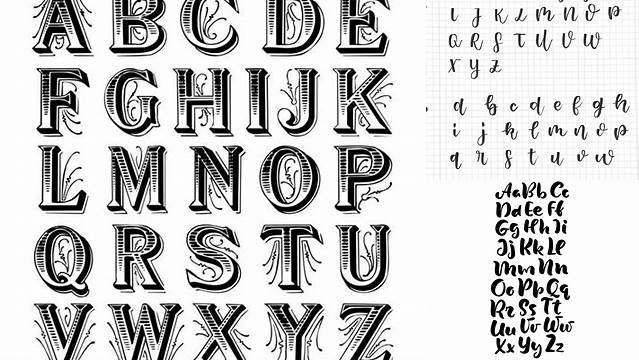
Lettering Fonts: Design Alphabets & Creative Typography
Hey guys! Ever wondered how to make your text pop with stunning lettering? Or maybe you're just curious about the art of lettering fonts design? Well, you've come to the right place! This comprehensive guide dives deep into the world of lettering, exploring various fonts, design techniques, and alphabets that will take your creations to the next level. Whether you're a seasoned designer or just starting out, there's something here for everyone. So, let's get started and unleash your inner lettering artist!
Lettering Fonts: The Foundation of Design
Lettering fonts are the backbone of any great design that involves text. Understanding lettering fonts is crucial because they set the tone, style, and overall aesthetic of your project. Think of it this way: a playful, bubbly font would be perfect for a children's book, but it might look completely out of place on a professional business card. The world of lettering fonts is vast and varied, with each style carrying its own unique personality and purpose. From elegant serifs that exude sophistication to modern sans-serifs that scream minimalism, the options are endless. Exploring the history and evolution of different lettering fonts can also provide valuable insights into their appropriate use. For example, knowing that calligraphy-inspired scripts originated from handwritten traditions can help you appreciate their formal and graceful qualities. Furthermore, the technical aspects of lettering fonts, such as kerning (the spacing between individual letters) and leading (the spacing between lines of text), play a significant role in readability and visual appeal. Mastering these elements will allow you to create designs that not only look beautiful but are also easy to read. Remember, choosing the right lettering font is like selecting the perfect outfit for an occasion β it should fit the context and enhance the overall message.
Exploring Different Styles of Lettering Fonts
When we talk about lettering fonts, it's like stepping into a candy store β there are so many delicious options to choose from! Each style of lettering font carries its own unique flavor and personality, making it crucial to understand the nuances before picking one for your project. Serif fonts, with their little βfeetβ or strokes at the ends of letters, often convey a sense of tradition, elegance, and formality. Think of classic book covers or prestigious logos β you'll often find serif fonts in play. On the other hand, sans-serif fonts, which lack these serifs, tend to feel more modern, clean, and minimalist. They're a popular choice for websites and digital interfaces where readability on screens is key. Script fonts, inspired by handwriting, add a touch of personality and flair. They can range from formal calligraphy to playful brush lettering, making them versatile for invitations, branding, and artistic projects. Display fonts are the wildcards of the font world β they're designed to grab attention and often feature unique, stylized letterforms. These fonts are perfect for headlines, posters, and anything that needs a bold statement. Understanding these different styles and their characteristics is like having the right tools in your toolbox β you'll be able to choose the perfect lettering font for any project.
The Importance of Readability in Lettering Fonts
While lettering fonts are all about aesthetics, let's not forget a crucial element: readability! After all, what's the point of a beautiful design if no one can read it? Readability is the ease with which the viewer can understand the written text. It's affected by various factors, including the font's letterforms, spacing, size, and contrast with the background. Imagine a script font with overly ornate swirls and loops β it might look stunning at first glance, but if the letters are difficult to distinguish, it won't be very effective for conveying your message. Similarly, a font that's too small or has insufficient contrast with the background can strain the eyes and make reading a chore. When selecting lettering fonts, consider the context in which they'll be used. For body text in a book or on a website, prioritize clarity and legibility. Sans-serif fonts are often preferred for digital screens due to their clean lines and good readability at smaller sizes. For headlines or display text, you have more leeway to experiment with decorative fonts, but always ensure that the core message remains clear. Remember, a well-chosen lettering font is one that not only looks good but also allows your audience to effortlessly connect with your content. So, let's make readability a priority in our designs!
Lettering Design: Techniques and Principles
Lettering design is more than just picking a pretty font; it's an art form that combines creativity, technical skill, and a deep understanding of visual communication. Mastering lettering design involves learning various techniques and principles that help you create impactful and visually appealing compositions. One fundamental aspect is understanding typography β the art of arranging type to make written language legible, readable, and appealing. This includes considerations like font pairing, kerning, leading, and hierarchy. Font pairing involves selecting two or more fonts that complement each other and create visual harmony. Kerning, as we discussed earlier, is the adjustment of spacing between individual letters to achieve a balanced and consistent appearance. Leading refers to the vertical space between lines of text, which affects readability and overall layout. Hierarchy is the visual arrangement of text to guide the reader's eye and emphasize important information. Beyond typography, lettering design also encompasses hand-lettering, which is the art of drawing letters by hand. This allows for a more organic and personalized touch. Whether you're working digitally or with traditional tools, mastering lettering design principles will enable you to create text that not only looks beautiful but also effectively communicates your message. So, let's dive into the techniques and principles that make lettering design a powerful tool for visual expression!
The Role of Composition in Lettering Design
Composition is the silent architect of lettering design, the invisible framework that holds your visual message together. It's how you arrange the elements of your design β the letters, words, and any accompanying graphics β to create a harmonious and impactful whole. A well-composed lettering piece guides the viewer's eye, establishes visual hierarchy, and communicates the message effectively. Think of it like staging a play β you wouldn't just throw the actors on stage and expect them to tell a compelling story; you'd carefully consider their positions, movements, and interactions. Similarly, in lettering design, you need to think about the placement of each letter and word, the overall balance of the composition, and the way the different elements relate to each other. One key principle of composition is the use of negative space, also known as whitespace. This is the empty space around and between your lettering elements, and it's crucial for preventing visual clutter and improving readability. A generous amount of negative space can make your lettering feel more open and inviting, while too little can make it feel cramped and overwhelming. Other compositional elements to consider include alignment, balance (symmetrical or asymmetrical), and the use of focal points to draw the viewer's attention to key areas. Mastering composition is like learning the language of visual storytelling β it allows you to craft lettering designs that not only look beautiful but also resonate with your audience on a deeper level.
Hand Lettering Techniques for Unique Designs
Hand lettering is where the magic happens! It's the art of drawing letters, not just typing them, and it allows for a level of personalization and uniqueness that's hard to achieve with standard lettering design. Hand lettering opens the door to endless creative possibilities, from elegant calligraphy to whimsical brush lettering. So, how do you get started? Well, the first step is to understand the basic strokes that form the foundation of letterforms. Whether you're using a pen, brush, or digital stylus, practice creating consistent lines, curves, and angles. Experiment with different tools and techniques to find your own style. Brush lettering, for example, involves varying the pressure on your brush to create thick and thin strokes, adding a dynamic and flowing quality to your lettering. Calligraphy, on the other hand, often involves more structured letterforms and a focus on precision and consistency. Don't be afraid to explore different styles and find what resonates with you. Beyond the technical aspects, hand lettering is also about expressing your personality and creativity. Let your imagination run wild and experiment with different letterforms, flourishes, and embellishments. Remember, practice makes perfect, so dedicate time to honing your skills and developing your unique hand lettering style. With a little patience and passion, you'll be creating stunning hand-lettered designs in no time!
Digital Lettering Design: Tools and Software
In today's digital age, lettering design has evolved beyond traditional pen and paper, opening up a whole new world of possibilities. Digital lettering design allows you to create stunning letterforms with the flexibility and precision of software and digital tools. So, what are some of the essential tools and software for digital lettering? Well, first off, you'll need a graphics tablet and stylus. These allow you to draw directly on your computer screen, mimicking the feel of traditional hand lettering. Wacom is a popular brand, but there are many other options available to suit different budgets and needs. Next, you'll need to choose your software. Adobe Illustrator is an industry-standard vector graphics editor that's widely used for lettering design. It offers a wide range of tools for creating and manipulating letterforms, including the Pen tool, which allows you to draw precise curves and lines. Adobe Photoshop is another popular choice, especially for raster-based lettering and adding textures and effects. Procreate, an iPad app, has also gained popularity among lettering artists for its intuitive interface and powerful features. When it comes to digital lettering techniques, there are a few key things to keep in mind. Working with vector graphics allows you to scale your lettering without losing quality, making it ideal for logos and designs that need to be used at different sizes. You can also easily experiment with different colors, gradients, and effects to add visual interest to your lettering. Remember, digital lettering is a powerful tool, but it's still important to have a strong foundation in lettering principles. Understanding letterforms, composition, and typography is crucial for creating effective and visually appealing digital lettering designs. So, embrace the digital realm and let your creativity flow!
Lettering Alphabet: A Deep Dive into Letterforms
The lettering alphabet is the building block of all lettering design. Understanding the anatomy of letterforms and how they interact with each other is crucial for creating visually harmonious and effective designs. Delving into the lettering alphabet means exploring the history, evolution, and different styles of letters. Each letter has its own unique personality and characteristics, and mastering them is like learning a new language. Think of the elegant curves of a cursive script versus the sharp angles of a geometric sans-serif β both are beautiful in their own way, but they convey very different moods and messages. When studying the lettering alphabet, pay attention to the individual strokes that make up each letter, as well as the proportions and spacing between letters. Understanding these nuances will allow you to create letterforms that are both aesthetically pleasing and legible. Whether you're designing a logo, a poster, or a piece of hand lettering, a strong grasp of the lettering alphabet is essential. So, let's embark on a deep dive into the fascinating world of letterforms and unlock the secrets of the lettering alphabet!
Anatomy of Letterforms: Strokes and Structures
Let's break down the lettering alphabet into its basic components: the anatomy of letterforms. Just like the human body, each letter has its own unique structure and set of parts that contribute to its overall form and function. Understanding these components is crucial for creating well-designed and legible letterforms. The key elements of a letterform include strokes, serifs, counters, and terminals. Strokes are the lines that make up the letter, and they can be thick, thin, curved, or straight. Serifs, as we discussed earlier, are the small decorative strokes at the ends of letters in serif fonts. Counters are the enclosed spaces within letters, such as the holes in βoβ or βd.β Terminals are the ends of strokes that don't have serifs, and they can be rounded, flat, or angled. When studying letterforms, pay attention to the relationships between these elements. How do the thick and thin strokes balance each other? How do the serifs affect the overall appearance of the letter? How do the counters contribute to readability? By understanding the anatomy of letterforms, you'll be able to appreciate the subtle nuances of different fonts and create your own unique letterforms with confidence. It's like learning the grammar of typography β you'll be able to construct meaningful and visually compelling letterforms that effectively communicate your message.
Uppercase vs. Lowercase: When to Use Which
Let's talk about the difference between uppercase and lowercase letters β it's not just a matter of size! Uppercase and lowercase letters have distinct personalities and serve different purposes in lettering design. Understanding when to use each can significantly impact the readability and visual impact of your designs. Uppercase letters, also known as capital letters, tend to be more formal, assertive, and attention-grabbing. They're often used for headlines, titles, and logos where you want to make a strong statement. Lowercase letters, on the other hand, are generally perceived as more friendly, approachable, and easier to read in large blocks of text. They're the workhorses of typography, used for body text in books, articles, and websites. When deciding between uppercase and lowercase, consider the context and the message you want to convey. Using all uppercase letters can be effective for short, impactful headlines, but it can also feel overwhelming and aggressive if used excessively. Mixing uppercase and lowercase letters can create visual interest and hierarchy, but it's important to do it strategically. For example, you might use an uppercase letter to start a sentence or to emphasize a particular word. Remember, the goal is to create a design that is both visually appealing and easy to read. So, choose your uppercase and lowercase letters wisely!
The Art of Calligraphy and Script Lettering
Calligraphy and script lettering are like the elegant dancers of the lettering alphabet. They add a touch of grace, personality, and artistry to any design. These styles are inspired by handwriting and often feature flowing strokes, graceful curves, and a sense of movement. Calligraphy, in its traditional form, is the art of beautiful writing, often using specialized pens and inks. It's characterized by precise letterforms, consistent stroke weights, and a high level of formality. Script lettering, on the other hand, is a broader term that encompasses a variety of handwritten styles, from formal calligraphy to more casual brush lettering. Script fonts and hand lettering can be used for a wide range of purposes, from wedding invitations to logos to artistic posters. They add a personal touch and can convey a sense of elegance, romance, or playfulness, depending on the specific style. Mastering calligraphy and script lettering takes time and practice, but the rewards are well worth the effort. Learning the basic strokes, understanding letter proportions, and developing a steady hand are crucial for creating beautiful letterforms. Whether you're using traditional tools or digital software, calligraphy and script lettering offer a unique way to express your creativity and add a touch of sophistication to your designs. So, let's embrace the art of flowing letterforms and explore the magic of calligraphy and script lettering!
Mastering the Lettering Alphabet: Tips and Tricks
So, you're ready to dive deep into the world of the lettering alphabet? Awesome! But mastering these 26 characters takes more than just memorizing their shapes. It's about understanding their nuances, their relationships, and how they work together to create visually appealing and legible text. Letβs explore some tips and tricks to help you become a true lettering pro! First off, practice is your best friend. Just like learning any new skill, consistent practice is key to improving your lettering. Set aside some time each day to draw letters, experiment with different styles, and hone your techniques. Don't be afraid to make mistakes β they're part of the learning process! Another helpful tip is to study the work of other lettering artists and designers. Pay attention to how they construct their letterforms, how they use spacing and composition, and how they create visual hierarchy. Analyze what you like about their work and try to incorporate those elements into your own designs. Experimentation is also crucial. Don't be afraid to try new things, push your boundaries, and develop your own unique style. Play with different tools, techniques, and letterform variations. The more you experiment, the more you'll discover your own creative voice. Finally, remember to be patient and persistent. Mastering the lettering alphabet takes time and effort, but with dedication and practice, you'll be creating stunning letterforms in no time. So, let's get started and unlock the full potential of the lettering alphabet!
Understanding Kerning, Tracking, and Leading
Let's talk about three crucial elements that can make or break your lettering alphabet: kerning, tracking, and leading. These typographical adjustments might seem subtle, but they play a significant role in readability and overall visual appeal. Think of them as the secret ingredients that turn a good lettering design into a great one. Kerning, as we've mentioned before, is the adjustment of spacing between individual letters. It's about creating a visually balanced and harmonious appearance by ensuring that the space between each letter pair is just right. Some letter combinations, like βAVβ or βWA,β tend to have more space between them than others, and kerning helps to correct these inconsistencies. Tracking, on the other hand, is the uniform adjustment of spacing between all letters in a word or block of text. It's used to create a tighter or looser feel, depending on the context and the desired effect. Tracking can be useful for fitting text into a specific space or for creating a particular mood. Leading, which we've also touched upon, is the vertical space between lines of text. It's crucial for readability, as it affects how easily the eye can move from one line to the next. Insufficient leading can make text feel cramped and difficult to read, while excessive leading can make it feel disjointed. Mastering kerning, tracking, and leading is like fine-tuning a musical instrument β it allows you to create a harmonious and visually pleasing composition. So, pay attention to these details and watch your lettering designs come to life!
Common Lettering Mistakes and How to Avoid Them
Even the most experienced lettering artists make mistakes, guys! But the key is to learn from them and develop strategies to avoid them in the future. So, let's talk about some common lettering alphabet mistakes and how to steer clear of them. One common pitfall is inconsistent letterforms. This can happen when some letters in your design are slightly different in shape or size than others, creating a jarring visual effect. To avoid this, pay close attention to the proportions and consistency of your letterforms. Use guidelines if necessary and compare your letters to each other to ensure they're harmonious. Another common mistake is poor spacing, both between letters and between words. Insufficient spacing can make your text feel cramped and difficult to read, while excessive spacing can make it feel disjointed. Remember the kerning, tracking, and leading we discussed earlier! Avoid over-embellishing. Adding too many flourishes or decorative elements can overwhelm your lettering and make it difficult to read. Remember, simplicity is often key! Keep your designs clean and focused on the core message. One of the biggest blunders is ignoring readability. Beautiful lettering is useless if no one can read it! Always prioritize legibility and ensure that your font choices and spacing are conducive to easy reading. Learning to spot these common mistakes is the first step toward avoiding them. With practice and attention to detail, you'll be creating flawless lettering designs in no time!
Exploring Different Lettering Styles and Alphabets
The beauty of the lettering alphabet is that it's not just one set of 26 letters β it's a vast and diverse universe of styles and variations! Exploring different lettering styles and alphabets is like embarking on a creative adventure, opening up new possibilities and expanding your design vocabulary. There are countless lettering styles to choose from, each with its own unique personality and characteristics. We've already touched on serif, sans-serif, script, and display fonts, but there are many more to discover. Blackletter, with its bold, angular letterforms, evokes a sense of history and tradition. Gothic, with its ornate and intricate designs, adds a touch of drama and elegance. Geometric sans-serifs, with their clean, minimalist lines, feel modern and sophisticated. Beyond these broad categories, there are also countless sub-styles and variations, each with its own subtle nuances. Exploring different lettering alphabets from other languages and cultures can also be incredibly inspiring. Consider the elegant strokes of Arabic calligraphy or the bold, expressive characters of Japanese brush lettering. Studying these diverse alphabets can broaden your perspective and inspire you to create unique and innovative letterforms. Remember, the goal is not just to copy existing styles but to learn from them and develop your own unique lettering voice. So, let your curiosity guide you and explore the endless possibilities of different lettering styles and alphabets!
Lettering Design for Logos and Branding
Lettering design plays a pivotal role in creating memorable logos and effective branding. The way a brand's name is visually represented can significantly impact its perception and recognition. Lettering design for logos needs to be more than just pretty; it needs to communicate the brand's personality, values, and message. Think about some of the world's most iconic logos β Coca-Cola, Disney, Google β each one utilizes unique lettering that instantly evokes the brand's identity. The font choice, letter spacing, and overall style of the lettering all contribute to the logo's impact. When designing a logo, consider the brand's target audience and the message it wants to convey. A playful, whimsical font might be perfect for a children's brand, while a clean, minimalist font might be better suited for a tech company. The lettering should also be legible and scalable, ensuring that the logo looks good in both large and small sizes. Beyond the logo itself, lettering design also plays a crucial role in other branding materials, such as websites, marketing collateral, and packaging. Consistent use of lettering styles and fonts across all brand touchpoints helps to create a cohesive and recognizable brand identity. So, whether you're designing a logo or developing a brand's visual identity, remember that lettering design is a powerful tool for communication and brand building.
Choosing the Right Lettering Font for Your Brand
Selecting the right lettering fonts for your brand is a crucial decision that can significantly impact your brand's perception and identity. The font you choose is like the voice of your brand β it speaks volumes about your company's personality, values, and message. So, how do you go about choosing the perfect font? Well, first off, consider your brand's target audience and the overall tone you want to convey. Are you aiming for a sophisticated and elegant look, a modern and minimalist feel, or a playful and approachable vibe? The font you choose should align with these goals. Think about your brand's industry and competitors. What fonts are they using? Do you want to blend in or stand out? Choosing a font that's too similar to your competitors can lead to brand confusion, while choosing a font that's too different might not resonate with your target audience. Consider the legibility and readability of the font. A beautiful font is useless if no one can read it! Ensure that your chosen font is clear and easy to read in both print and digital formats. Think about font pairing. If you're using more than one font in your branding, make sure they complement each other and create a harmonious visual experience. A good rule of thumb is to pair a serif font with a sans-serif font for contrast. Finally, test your font choices in different contexts and applications. See how they look on your website, in your logo, and on your marketing materials. The right lettering font can elevate your brand and create a lasting impression. So, take your time, do your research, and choose wisely!
Creating a Unique Logo with Custom Lettering
Want to make your brand truly stand out? Consider creating a unique logo with custom lettering! Custom lettering design allows you to craft a logo that is completely original and perfectly tailored to your brand's identity. It's like having a bespoke suit made just for you β it fits perfectly and reflects your individual style. When you use a standard font for your logo, you're essentially using the same typeface that countless other brands are using. Custom lettering, on the other hand, gives you the freedom to create letterforms that are one-of-a-kind. So, how do you go about creating a custom lettering logo? Well, the first step is to define your brand's personality and message. What are your brand's core values? What feeling do you want to evoke? Once you have a clear understanding of your brand, you can start sketching and experimenting with different letterforms. Don't be afraid to think outside the box and try unconventional approaches. Consider using hand lettering techniques to add a personal touch to your logo. Hand-drawn letterforms often feel more authentic and unique than digital fonts. Play with different letter combinations, weights, and styles to find the perfect balance. Once you have a concept you're happy with, you can digitize your lettering and refine it using software like Adobe Illustrator. Creating a custom lettering logo is an investment, but it can pay off big time in terms of brand recognition and memorability. A well-designed custom lettering logo will help your brand stand out from the crowd and make a lasting impression on your audience.
The Importance of Consistency in Brand Lettering
Consistency is the name of the game when it comes to brand lettering design. Think of your brand's lettering as its voice β it should be consistent and recognizable across all platforms and touchpoints. Just imagine if a famous singer changed their voice every time they performed β it would be confusing and jarring for the audience! Similarly, inconsistent lettering can dilute your brand's identity and make it harder for people to recognize you. Using consistent fonts, styles, and spacing in your logo, website, marketing materials, and other brand assets helps to create a cohesive and professional image. It reinforces your brand's personality and builds trust with your audience. When developing your brand's lettering guidelines, consider your primary and secondary fonts, as well as any specific rules for their usage. For example, you might specify which font should be used for headlines, which should be used for body text, and how they should be paired together. It's also important to consider the color palette and how it interacts with your lettering. Ensure that your lettering is legible and visible against different backgrounds. Think about scalability as well. Your lettering should look good in both large and small sizes, whether it's on a billboard or a business card. Consistency in brand lettering is like the glue that holds your visual identity together. It creates a sense of familiarity and professionalism, helping your brand to stand out in a crowded marketplace. So, establish your lettering guidelines and stick to them!
Lettering for Web Design: Best Practices
Lettering plays a crucial role in web design, impacting both the aesthetics and the user experience of your website. Choosing the right lettering fonts and applying them effectively can make your website more visually appealing, engaging, and easy to navigate. So, what are some best practices for lettering in web design? Let's dive in! First and foremost, prioritize readability. Your website's text should be clear and easy to read on various devices and screen sizes. Choose fonts that are legible at different sizes and ensure that the contrast between the text and background is sufficient. Think about font pairing. Using two or three different fonts can add visual interest to your website, but it's important to choose fonts that complement each other. A common approach is to pair a serif font for headings with a sans-serif font for body text. Consider the loading speed of your fonts. Web fonts can sometimes slow down your website's loading time, which can negatively impact user experience and SEO. Optimize your fonts for web use and consider using a content delivery network (CDN) to speed up delivery. Pay attention to typography best practices, such as kerning, leading, and tracking. These subtle adjustments can make a big difference in the overall readability and visual appeal of your text. Use responsive typography to ensure that your text looks good on all devices. This involves setting font sizes and line heights that adapt to different screen sizes. Finally, test your website's lettering on different browsers and devices to ensure that it looks consistent across all platforms. Effective lettering can elevate your website's design and create a positive user experience. So, follow these best practices and make your website's text shine!
Font Pairing for Web Design: Creating Visual Harmony
Font pairing is a crucial aspect of web design, and it's all about creating visual harmony. Choosing the right lettering fonts to pair together can elevate your website's design and improve the overall user experience. But how do you create a successful font pairing? Well, the key is to find fonts that complement each other without competing for attention. Think of it like a musical duet β the voices should harmonize, not clash. One common and effective approach is to pair a serif font with a sans-serif font. This creates a visual contrast that can make your headings stand out while ensuring that your body text is easy to read. For example, you might pair a classic serif font like Times New Roman with a clean sans-serif font like Arial. Another approach is to pair fonts from the same font family. This creates a sense of visual consistency and can be a safe and reliable option. For example, you might use different weights and styles of the same font for headings and body text. When pairing fonts, consider the personality and tone of your website. A playful and whimsical website might call for more unconventional font pairings, while a professional and corporate website might benefit from more conservative choices. Pay attention to the details, such as kerning, leading, and tracking, to ensure that your font pairing looks polished and professional. Finally, don't be afraid to experiment and try different combinations until you find the perfect pairing for your website. A well-executed font pairing can add depth, personality, and visual interest to your web design.
Web-Safe Fonts vs. Web Fonts: What to Choose?
When it comes to lettering design for the web, you'll encounter two main categories of fonts: web-safe fonts and web fonts. Understanding the differences between them and knowing when to use each is crucial for creating a visually appealing and accessible website. Web-safe fonts are fonts that are pre-installed on most computers and devices. This means that you can use them on your website without having to worry about them loading or rendering incorrectly for your visitors. Common web-safe fonts include Arial, Times New Roman, Courier New, and Verdana. Web fonts, on the other hand, are fonts that are not pre-installed on users' devices. They are hosted on a server and downloaded to the user's browser when they visit your website. This allows you to use a wider variety of fonts on your website, including custom and designer fonts. Popular web font services include Google Fonts, Adobe Fonts, and Font Squirrel. So, which should you choose? Well, web-safe fonts are a reliable choice if you prioritize accessibility and performance. They load quickly and are guaranteed to render correctly for all users. However, they can be somewhat limiting in terms of design options. Web fonts offer much greater flexibility and design possibilities. They allow you to use unique and visually appealing fonts that can help your website stand out. However, they can potentially slow down your website's loading time and may not render correctly if the user's browser doesn't support them. The best approach is often to strike a balance between the two. You might use web fonts for headings and other decorative elements, while using web-safe fonts for body text to ensure readability and performance. Ultimately, the choice between web-safe fonts and web fonts depends on your specific design goals and priorities.
Responsive Typography: Lettering That Adapts to Devices
In today's multi-device world, responsive typography is a must-have for any website. Responsive lettering fonts ensure that your text looks good and is easily readable on all devices, from smartphones to desktops. It's about creating a fluid and adaptable typographic system that responds to different screen sizes and resolutions. So, how do you achieve responsive typography? Well, one key technique is to use relative font sizes, such as ems or rems, instead of fixed pixel sizes. Ems and rems are relative to the font size of the root element (usually the <html> tag), which means that your text will scale proportionally as the screen size changes. Another important aspect of responsive typography is adjusting line height and letter spacing for different screen sizes. As text wraps on smaller screens, it's important to increase line height to maintain readability. Similarly, you might want to adjust letter spacing to prevent text from feeling cramped. Using media queries in your CSS allows you to apply different typographic styles based on screen size. For example, you might use a larger font size for headings on larger screens and a smaller font size for headings on smaller screens. Consider using viewport units, such as vw and vh, to create text that scales proportionally to the viewport width and height. These units can be particularly useful for creating large, impactful headings that fill the screen. Finally, test your responsive typography on different devices and screen sizes to ensure that it looks good and is easily readable across all platforms. Responsive typography is all about creating a seamless and user-friendly reading experience, no matter how your website is accessed. So, embrace the power of fluid lettering and make your text adaptable!
The Future of Lettering Design: Trends and Innovations
The world of lettering design is constantly evolving, with new trends and innovations emerging all the time. From cutting-edge technologies to shifting design aesthetics, the future of lettering design is sure to be exciting and dynamic. So, what can we expect to see in the years to come? Well, one major trend is the continued rise of variable fonts. Variable fonts are a single font file that can contain multiple variations of a typeface, such as different weights, widths, and styles. This allows for greater flexibility and customization in lettering design, as well as improved performance on the web. Another trend is the increasing use of 3D lettering and typography. 3D lettering adds depth and dimension to designs, creating a more immersive and visually appealing experience. We're also seeing a resurgence of hand lettering and calligraphy, both in traditional and digital forms. This trend reflects a desire for more authentic and personalized designs. Artificial intelligence (AI) is also starting to play a role in lettering design, with AI-powered tools being used to generate fonts, create lettering compositions, and even personalize typography for individual users. The metaverse and virtual reality (VR) are also opening up new possibilities for lettering design, with designers creating immersive typographic experiences for virtual worlds. Sustainable typography is another emerging trend, with designers exploring eco-friendly font formats and promoting responsible font usage. The future of lettering design is all about embracing innovation, pushing boundaries, and creating visually compelling and meaningful typographic experiences. So, stay curious, keep learning, and get ready for the exciting evolution of lettering design!
The Rise of Variable Fonts and Their Impact
Variable fonts are revolutionizing the world of lettering design, and their rise is one of the most significant trends shaping the future of typography. So, what exactly are variable fonts, and why are they such a game-changer? Well, traditional font formats typically store each weight, width, and style of a typeface as a separate font file. This can result in large file sizes and limit the flexibility of lettering design. Variable fonts, on the other hand, are a single font file that can contain multiple variations of a typeface. They use a set of βaxesβ to define different design parameters, such as weight, width, slant, and optical size. This allows designers to create a wide range of typographic styles from a single font file, resulting in smaller file sizes and improved performance on the web. The impact of variable fonts is far-reaching. For web design, they offer significant performance benefits, as only one font file needs to be downloaded instead of multiple files. This can lead to faster loading times and improved user experience. For graphic design, variable fonts offer greater flexibility and control over typography. Designers can easily adjust font weights, widths, and styles to create custom typographic solutions for their projects. Variable fonts also enable more responsive typography, as font styles can be adjusted based on screen size and other factors. The rise of variable fonts is empowering designers to create more dynamic, flexible, and visually compelling lettering designs. As variable font technology continues to evolve, we can expect to see even more innovative applications and creative possibilities.
3D Lettering and Typography: Adding Depth to Designs
3D lettering and typography are taking the lettering design world by storm, adding a new dimension of depth and visual interest to designs. This trend involves creating letterforms that appear to pop off the page or screen, creating a more immersive and engaging experience for the viewer. 3D lettering can be achieved using a variety of techniques, including digital modeling software, hand lettering with shadows and highlights, and even physical constructions. Digital 3D lettering allows for a high degree of precision and control, enabling designers to create complex and realistic letterforms. Software like Cinema 4D, Blender, and Adobe Dimension are popular choices for creating 3D typography. Hand-lettered 3D lettering often involves using shading and highlights to create the illusion of depth and dimension. This technique can add a more organic and tactile feel to designs. Physical 3D lettering involves constructing letterforms from materials like wood, metal, or plastic. This approach can be used to create stunning installations and environmental graphics. 3D lettering is being used in a wide range of applications, from logos and branding to website headers and advertising campaigns. It can add a sense of dynamism, realism, and visual impact to designs, helping them to stand out from the crowd. As technology continues to evolve, we can expect to see even more innovative and creative applications of 3D lettering in the future. So, embrace the third dimension and add depth to your lettering designs!
The Resurgence of Hand Lettering and Calligraphy
In a digital world dominated by sleek, computer-generated fonts, there's a beautiful resurgence of hand lettering and calligraphy. This trend reflects a desire for more authentic, personalized, and human-touched designs. Hand lettering design is the art of drawing letters by hand, rather than using pre-made fonts. It allows for a level of creativity and individuality that's hard to achieve with digital typography. Calligraphy, as we've discussed before, is a more formal and traditional art form, focusing on precise and elegant letterforms. The resurgence of hand lettering and calligraphy is being driven by a number of factors. One is a reaction against the uniformity and predictability of digital fonts. Hand-lettered designs feel more unique, personal, and expressive. Another factor is the rise of social media and online platforms, which have made it easier for lettering artists to share their work and connect with audiences. Platforms like Instagram and Pinterest are filled with stunning examples of hand lettering and calligraphy, inspiring countless others to pick up a pen or brush and try it themselves. The DIY and maker movement is also contributing to the popularity of hand lettering and calligraphy. People are increasingly drawn to handcrafted and artisanal goods, and hand-lettered designs fit perfectly into this aesthetic. Hand lettering and calligraphy are being used in a wide range of applications, from logos and branding to wedding invitations and art prints. They add a touch of warmth, personality, and authenticity to any design. So, embrace the art of the hand and explore the beauty of hand lettering and calligraphy!
AI in Lettering Design: Opportunities and Challenges
Artificial intelligence (AI) is making its mark on lettering design, presenting both exciting opportunities and unique challenges. AI-powered tools are now being used to generate fonts, create lettering compositions, and even personalize typography for individual users. One of the most promising applications of AI in lettering design is font generation. AI algorithms can analyze existing fonts and learn their stylistic characteristics, then generate new fonts that are similar in style but with unique variations. This can help designers to create custom fonts more quickly and efficiently. AI can also be used to create lettering compositions automatically. For example, an AI algorithm can analyze a block of text and generate different layout options, suggesting the best font choices, spacing, and alignment. This can be a valuable tool for designers who are looking for inspiration or need to create multiple variations of a design quickly. Personalization is another area where AI can make a significant impact. AI algorithms can analyze a user's preferences and generate typography that is tailored to their individual tastes. This could lead to more personalized reading experiences on websites and apps. However, the use of AI in lettering design also presents some challenges. One concern is the potential for AI to create generic or unoriginal designs. It's important for designers to use AI tools as a starting point and to add their own creative input to ensure that the final result is unique and compelling. Another challenge is the ethical implications of AI-generated fonts. Who owns the copyright to a font created by an AI algorithm? These are questions that the industry will need to grapple with as AI becomes more prevalent in lettering design. Despite these challenges, AI has the potential to be a powerful tool for lettering designers, opening up new creative possibilities and streamlining the design process. It's important to embrace AI as a partner and to use it responsibly and ethically.